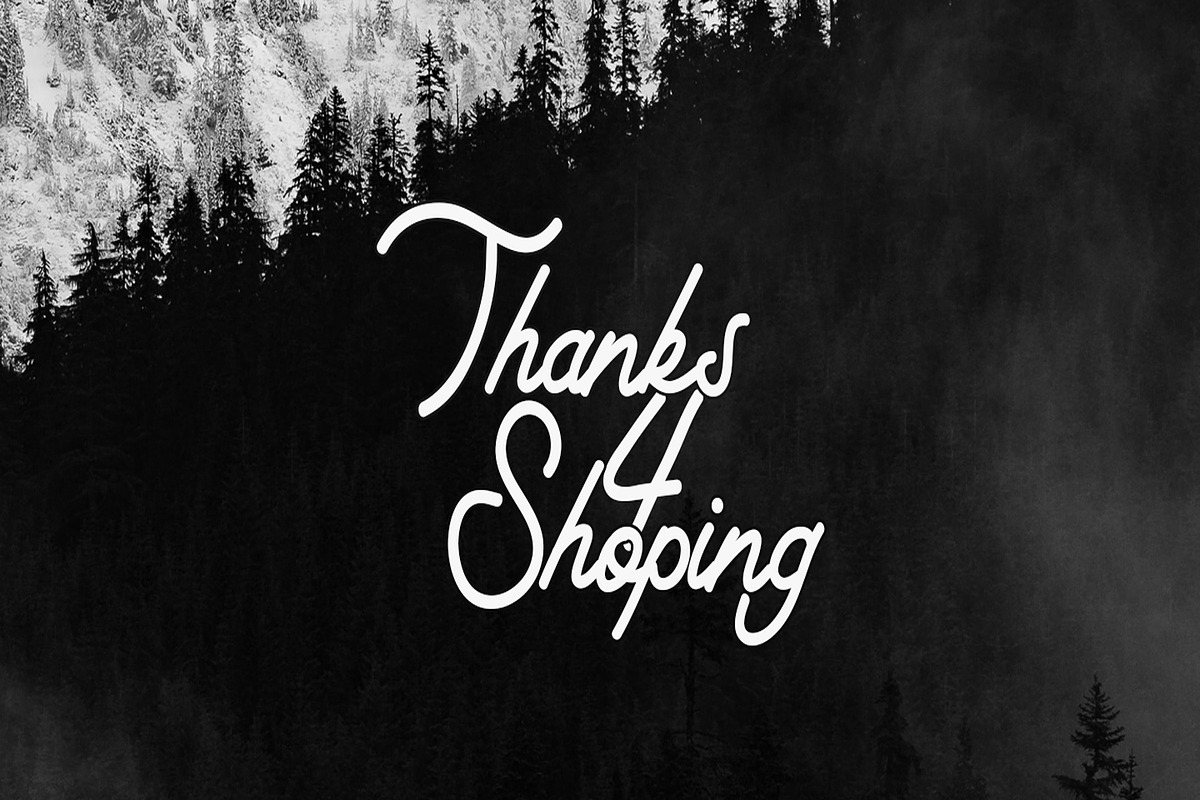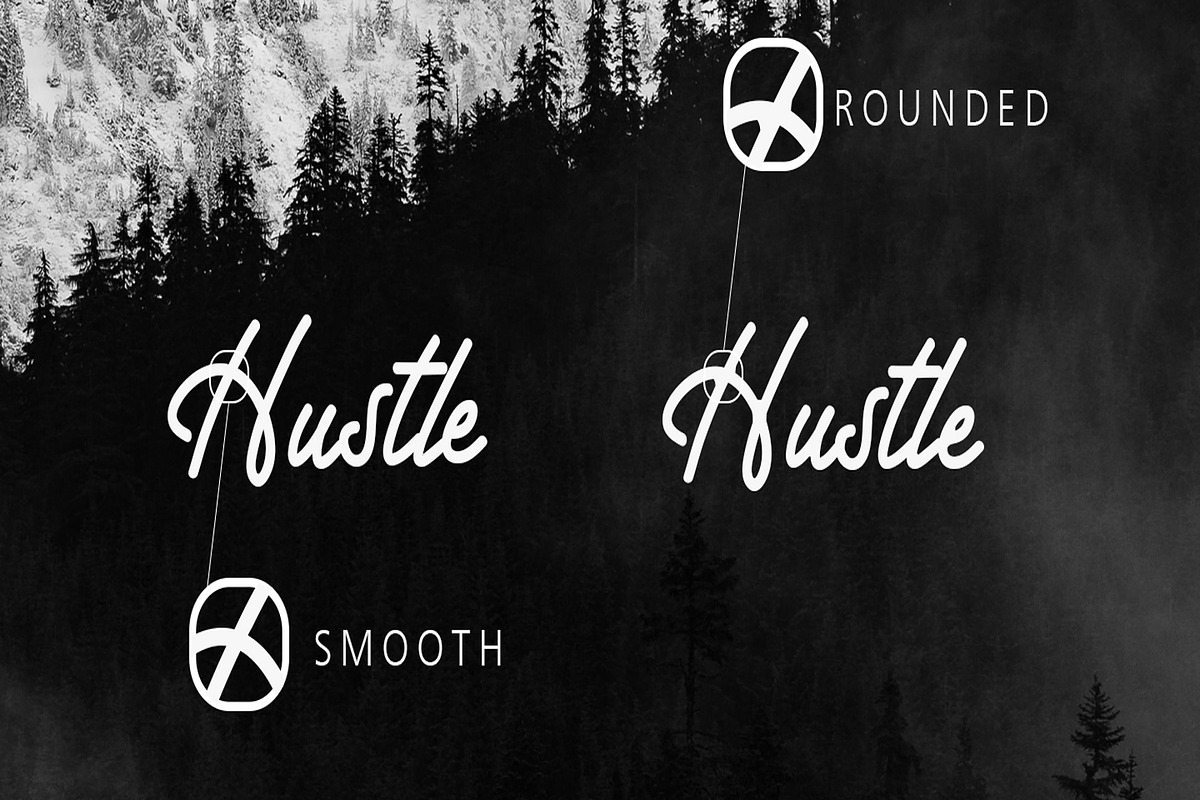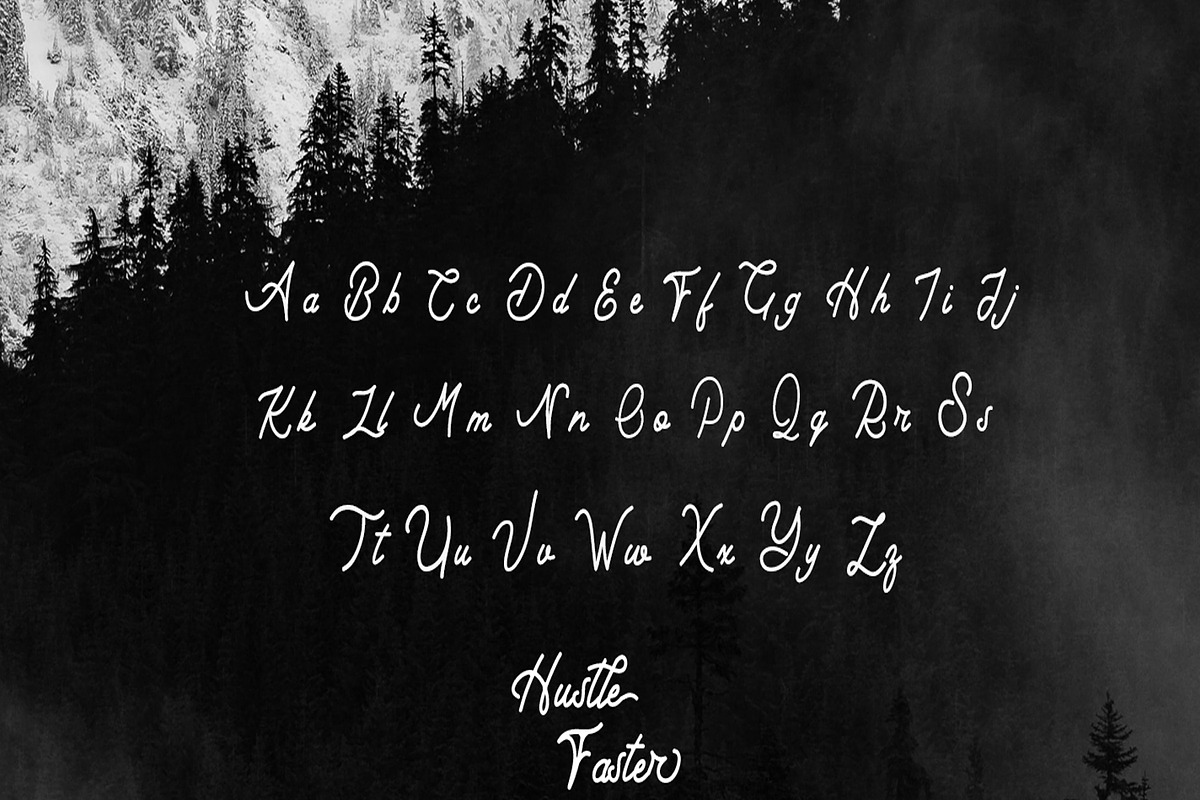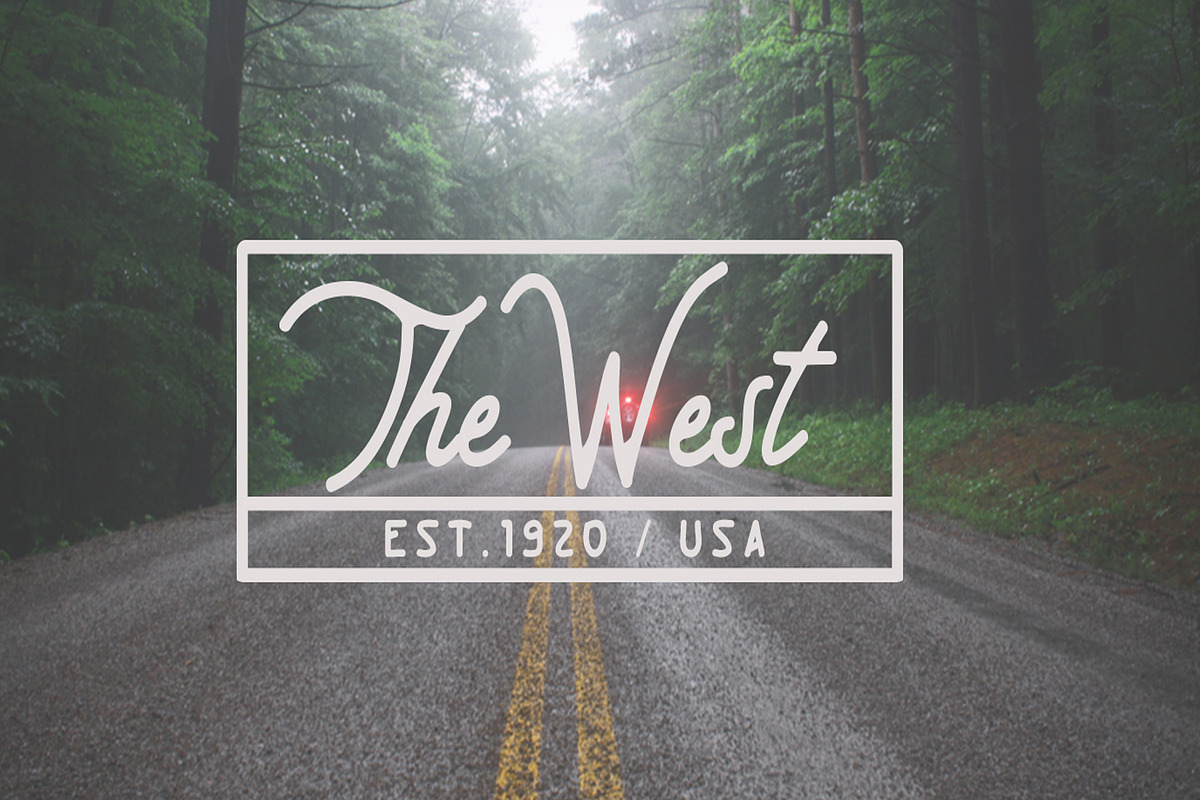
Hustle Faster Typeface
Hustle Faster font is very suitable for type & logotype. This font is very stylish and with 2 different styles so it gets variations and flavors that will appear more retro style and I think this is perfect for the needs of your design projects
Hustle Faster Typeface by Arendxstudio fits naturally into Branding, posters, packaging, typography.